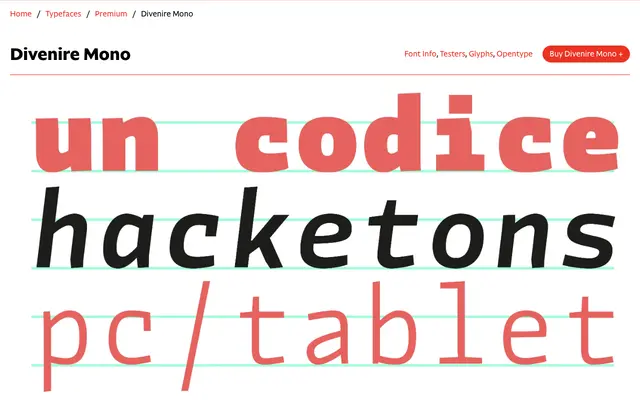
Divenire Mono
A humanist monospaced sans by Luciano Perondi that carries the organic letter structure of Divenire into fixed-width spacing for coding and typesetting.
Seven weights from Light to Black, each with a matching italic, plus variable font versions across the same range. Slanted stroke terminations on i, j, q, u and l, a shifting axis in g, o, d and c, and tendentially square letterforms all distinguish it from the more mechanical grid-bound mono. Extensive OpenType support includes contextual arrow ligatures, multiple stylistic sets, oldstyle figures and a full set of fractions.
A monospaced sans-serif with humanist characteristics including slanted stroke terminations, varied axis and organic asymmetrical letterforms, placing it clearly in the humanist mono category.